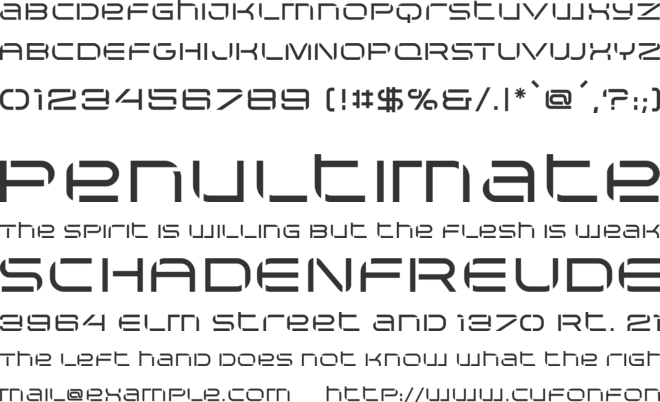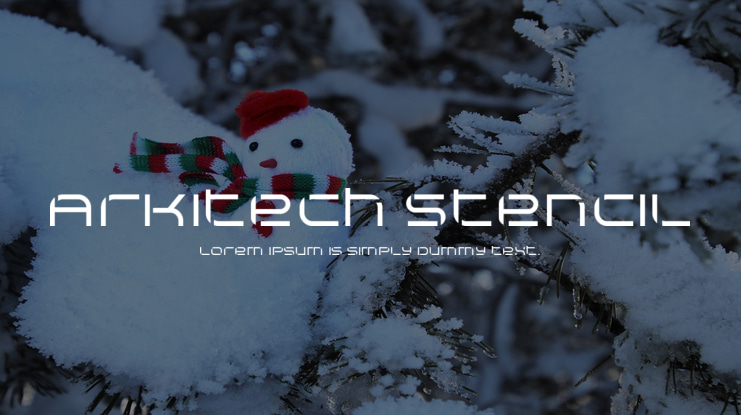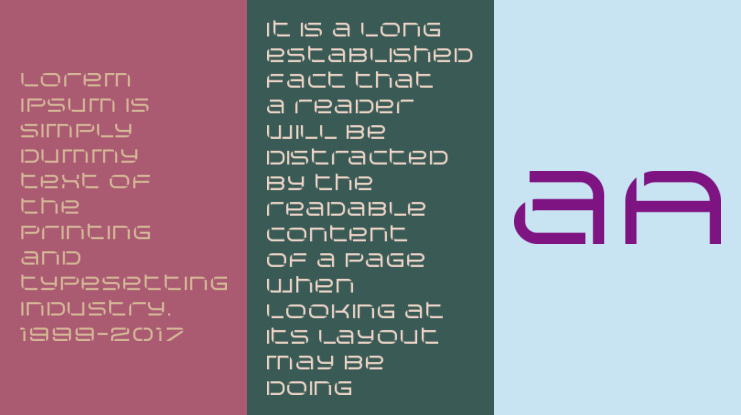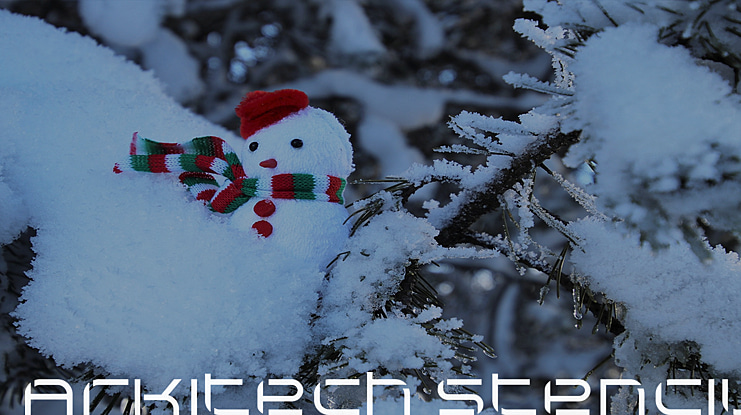
Arkitech Stencil Font
Ivan Filipov
A follow up to my Arkitech typeface - a stencil version of the medium weight. Very appropriate for futuristic interfaces and space-themed logos.